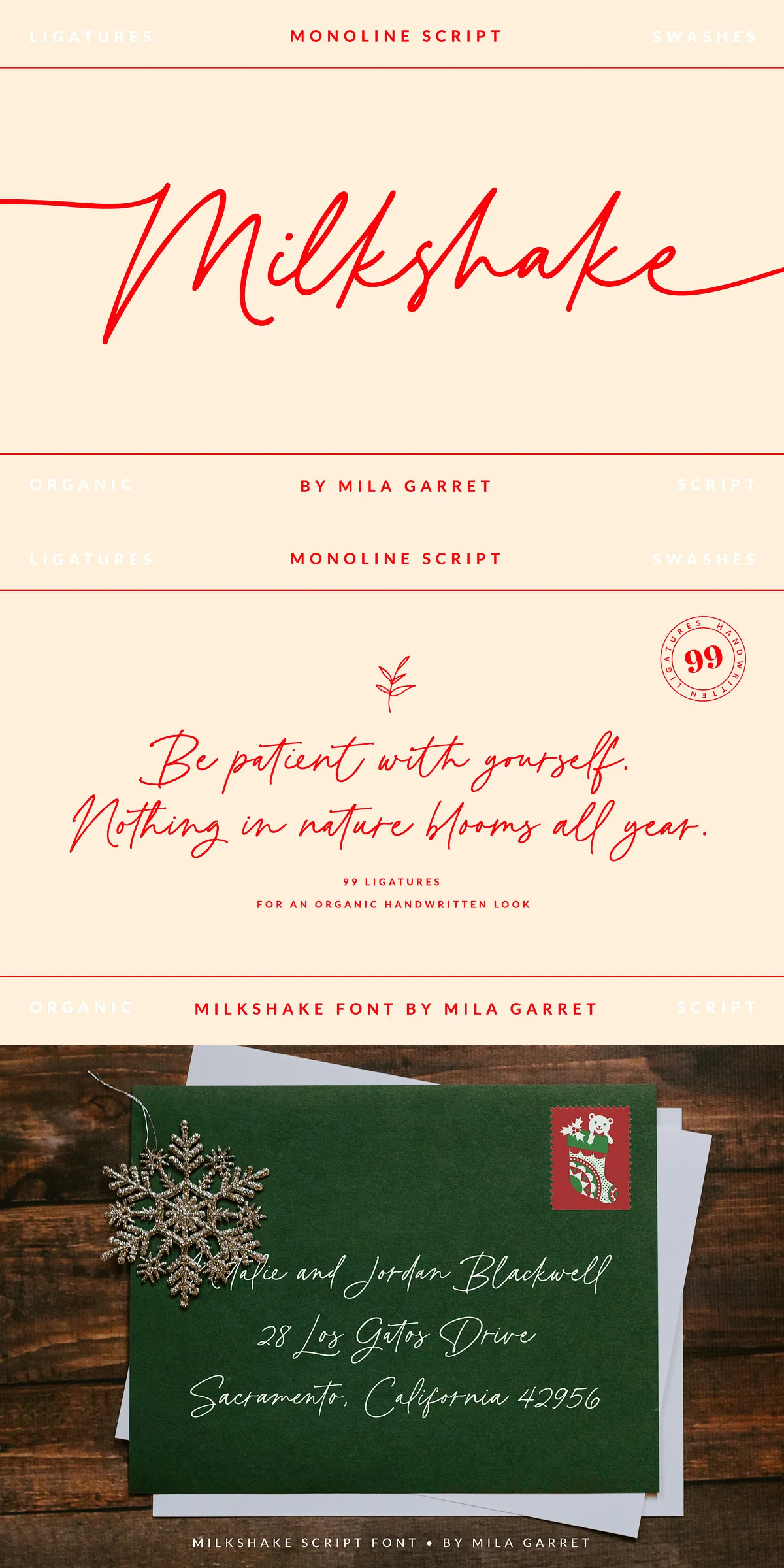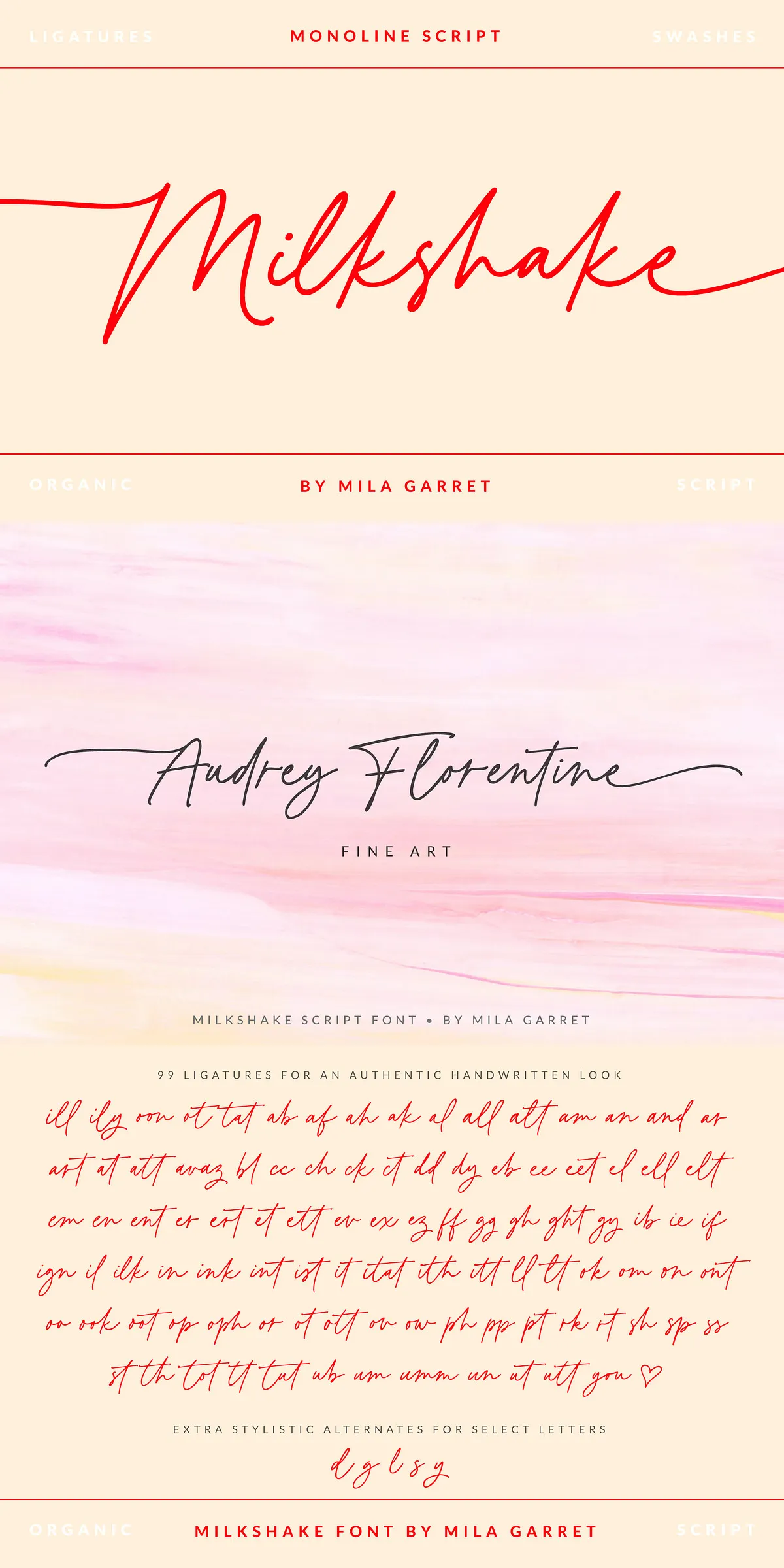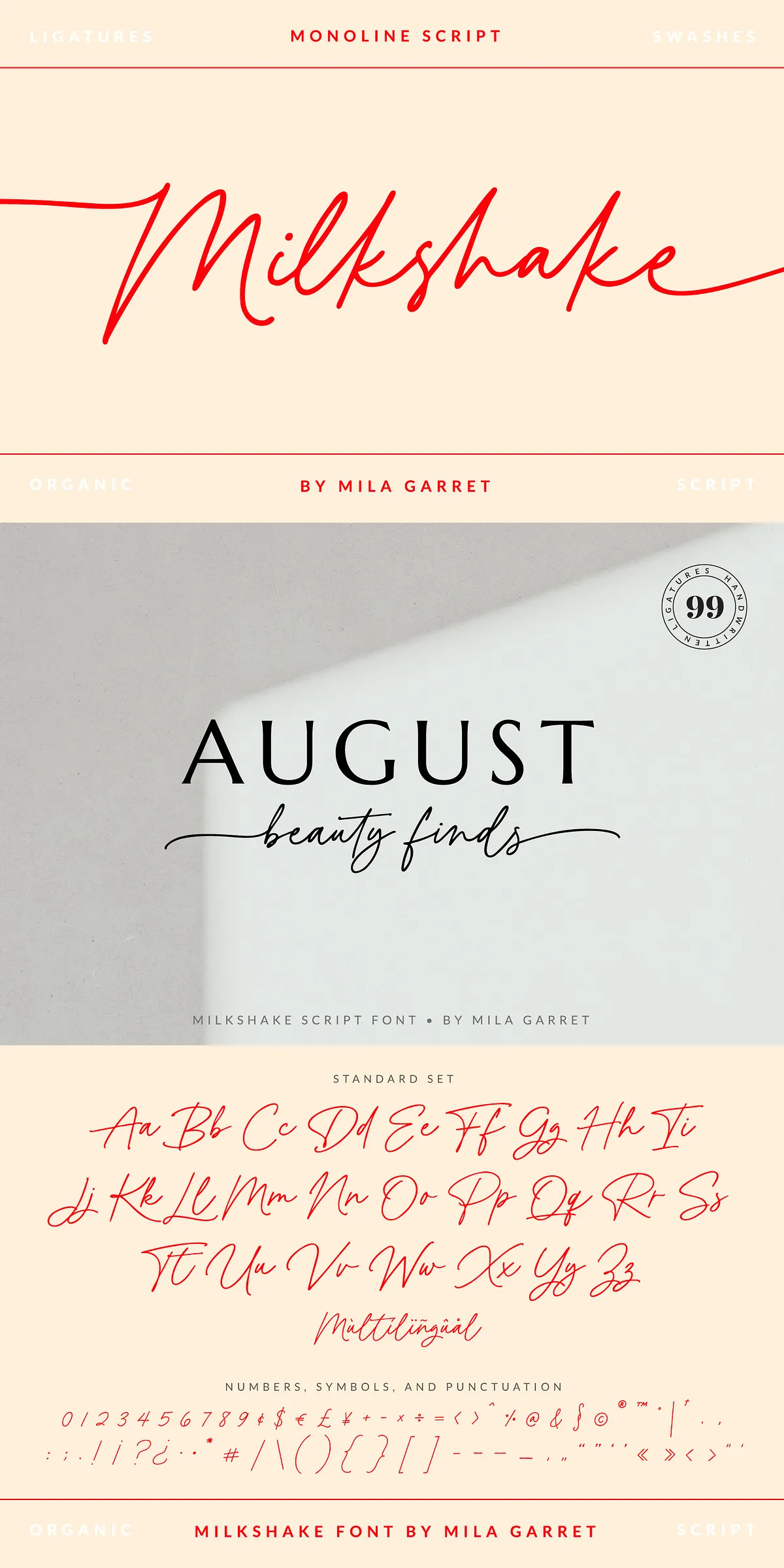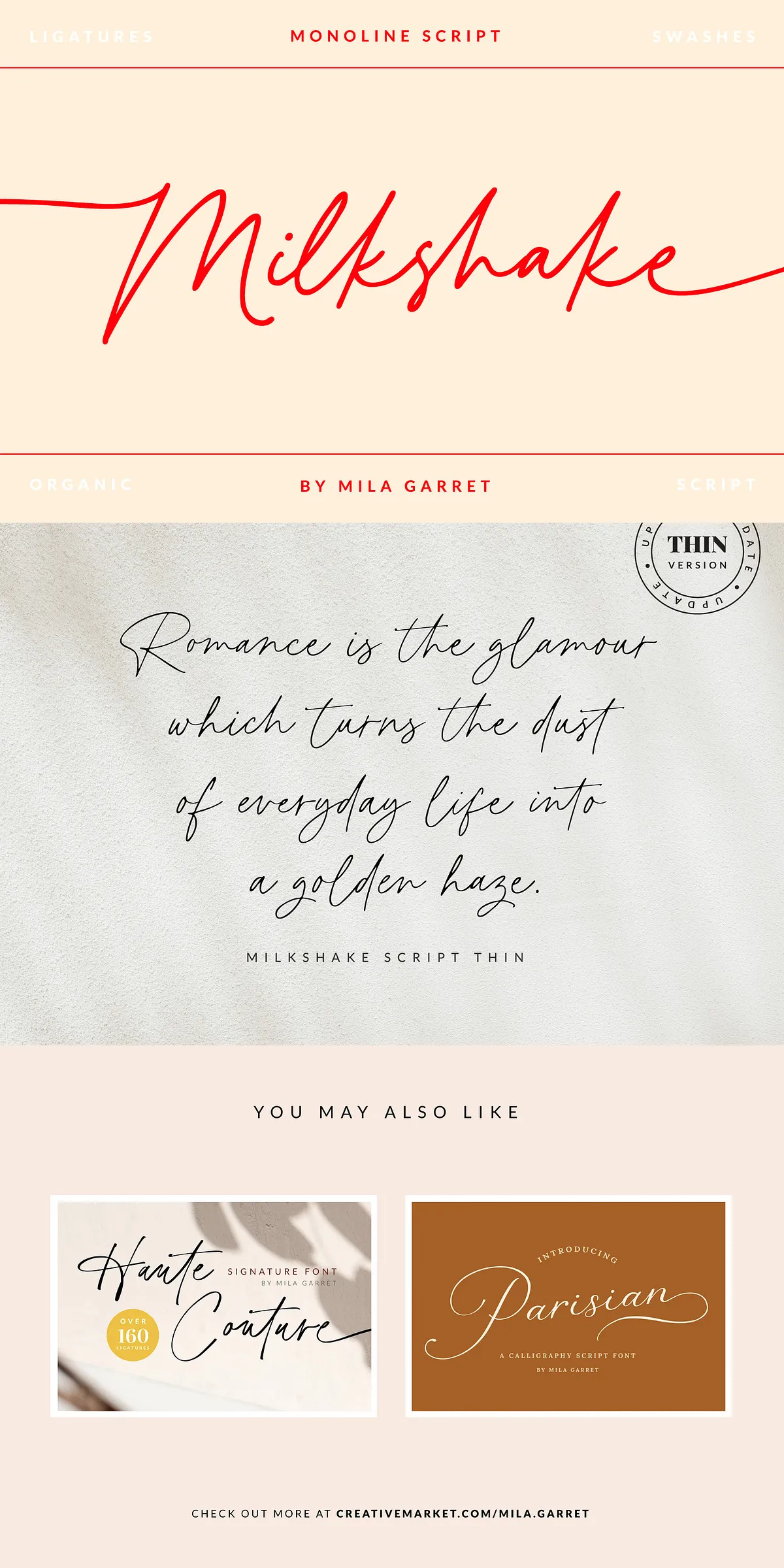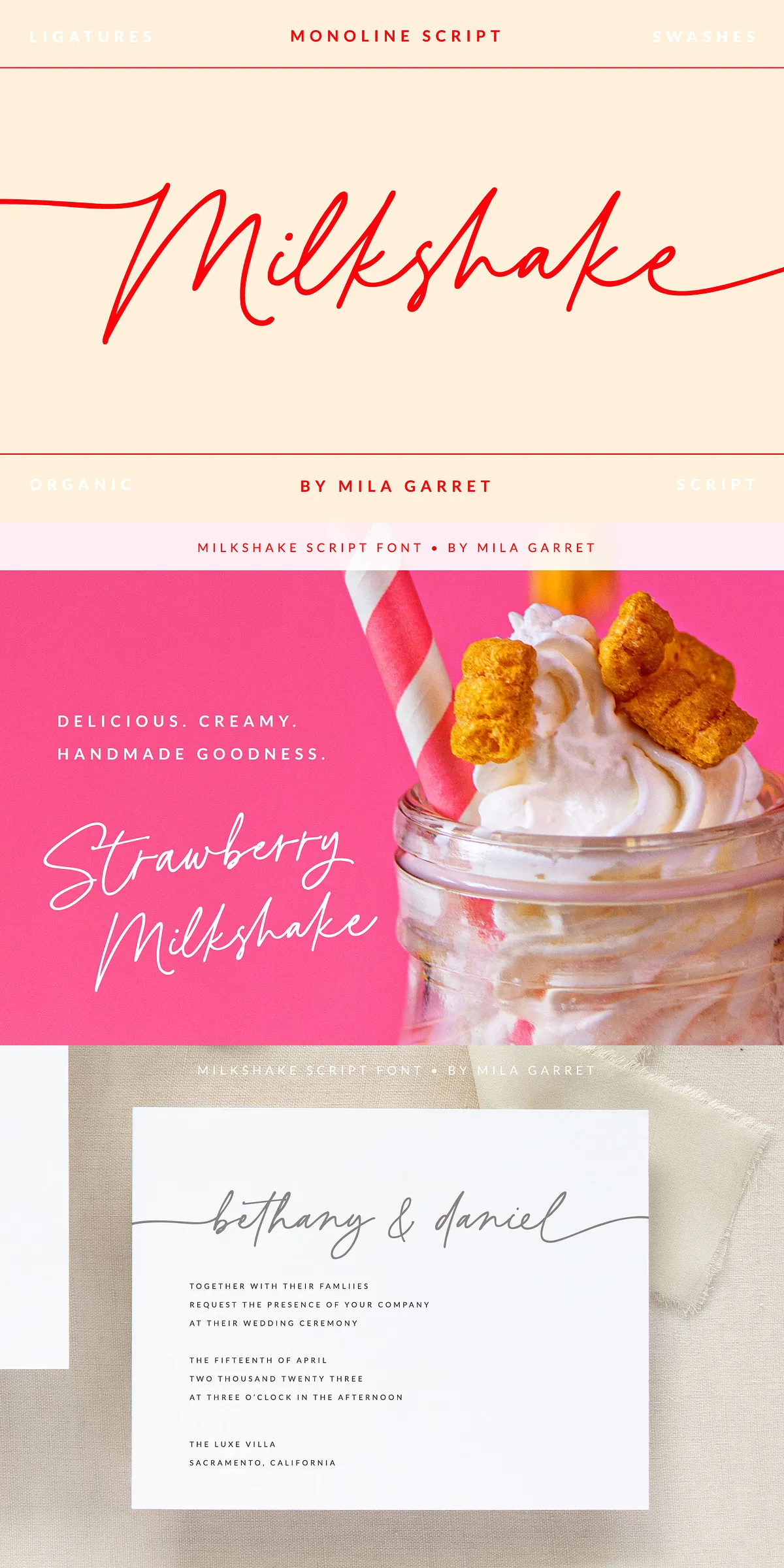
Milkshake Modern Handwritten Script
Milkshake Script is a contemporary handwritten font meticulously designed to bring a fresh, dynamic touch to a variety of creative projects. Bursting with personality and fluid charm, this font is ideal for wedding invitations, sophisticated branding, feminine and organic logo designs, stylish packaging, and more. Its lively strokes reflect the natural movement of handwriting, making any design feel personal and distinctive.
Rich Set of Features for Creative Freedom
Milkshake Script offers a full set of standard alphabets and punctuation, ensuring comprehensive usability across different languages and projects. The font’s character extends beyond the basics with multiple sets of swashed lowercase and uppercase letters that add playful, elegant flourishes to your text.
Specifically, it includes an extra set of beginning swashed lowercase letters and an extra set of ending swashed lowercase letters, enabling smooth and decorative transitions within words. These ornamental swashes create visually captivating openings and endings critical to wedding calligraphy and refined branding.
Moreover, the font boasts 99 carefully crafted handwritten ligatures, which seamlessly connect letters to mimic authentic handwriting flourishes. These ligatures blend naturally, enhancing the font’s fluidity and sophistication, while maintaining readability and style.
PUA Encoded for Easy Access
Multilingual Support for Global Reach
Milkshake Script is designed with inclusivity in mind, featuring extensive multilingual character support. It includes accented characters like Á, Â, Ä, À, Å, Ã, Æ, Ç, Ð, É, Ê, Ë, È, Í, Î, Ï, Ì, Ñ, Ó, Ô, Ö, Ò, Ø, Õ, Œ, Þ, Ú, Û, Ü, Ù, and many more. This broad array allows designers to use this font confidently, regardless of the language or region of their audience, making it suitable for global brands and international projects.
Perfect for Elegant Invitations and Refined Branding
The sophisticated aesthetic of Milkshake Script makes it a go-to font for wedding invitations, bridal shower announcements, and other special occasion stationery. Its smooth curves and delicate swashes evoke a sense of intimacy and grace, ideal for conveying heartfelt messages.
Additionally, small businesses seeking feminine, organic, or boutique-style logos will find Milkshake Script a versatile ally. The modern yet approachable look lends credibility and charm, helping brands stand out in competitive markets. Packaging design also benefits from this font’s personality, making product labels visually engaging and memorable.
Why Milkshake Script Font Stands Out
Combining modern handwriting style with practical design features, Milkshake Script empowers creators to express emotion and elegance simultaneously. Its extensive alternates and ligatures let you tailor your typography with finesse, avoiding repetitive or mechanical text effects.
This font fits perfectly into design workflows that demand both artistic flair and professional polish. From digital branding to print media, Milkshake Script enhances each project with handcrafted beauty and sophisticated style.